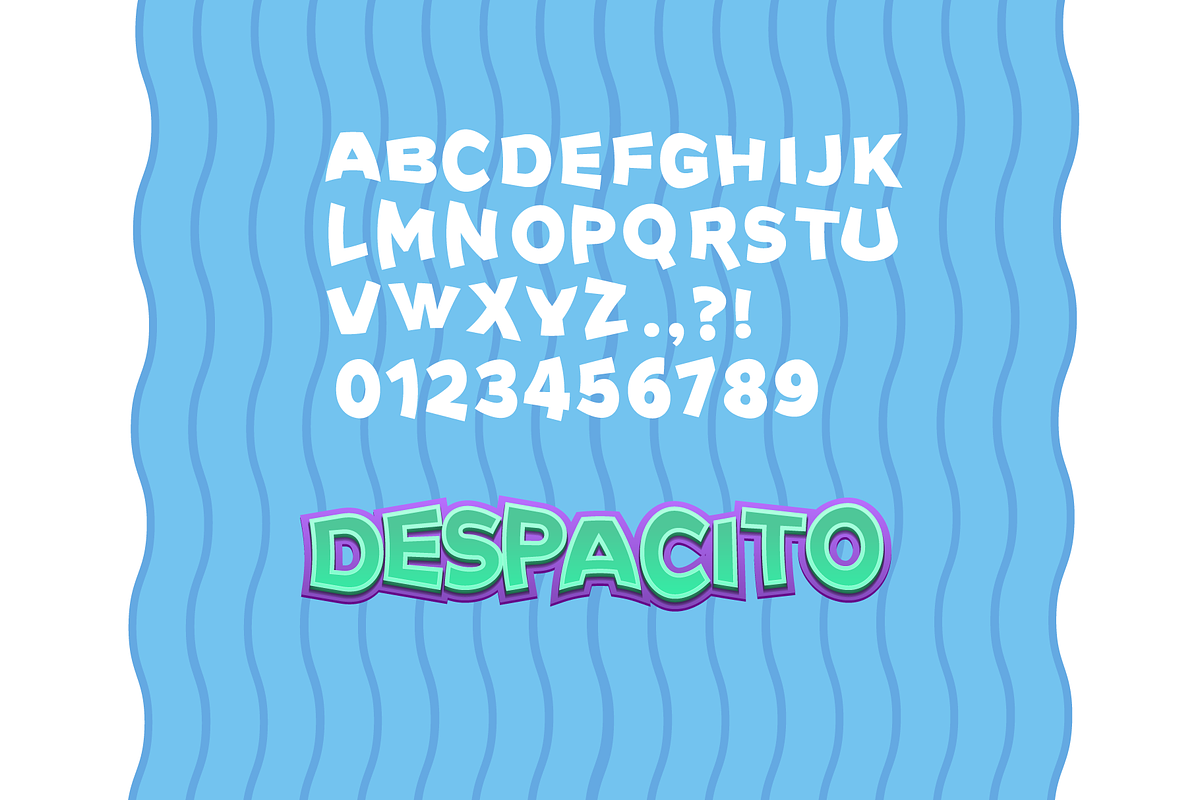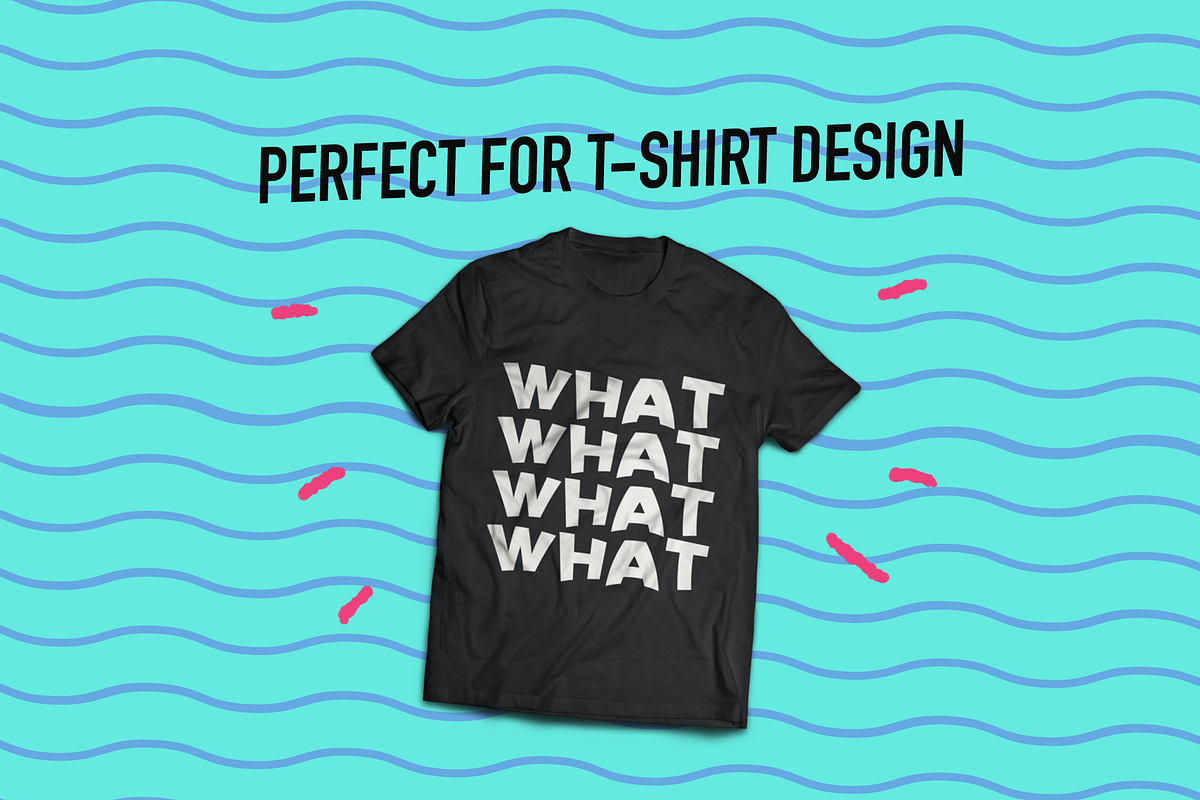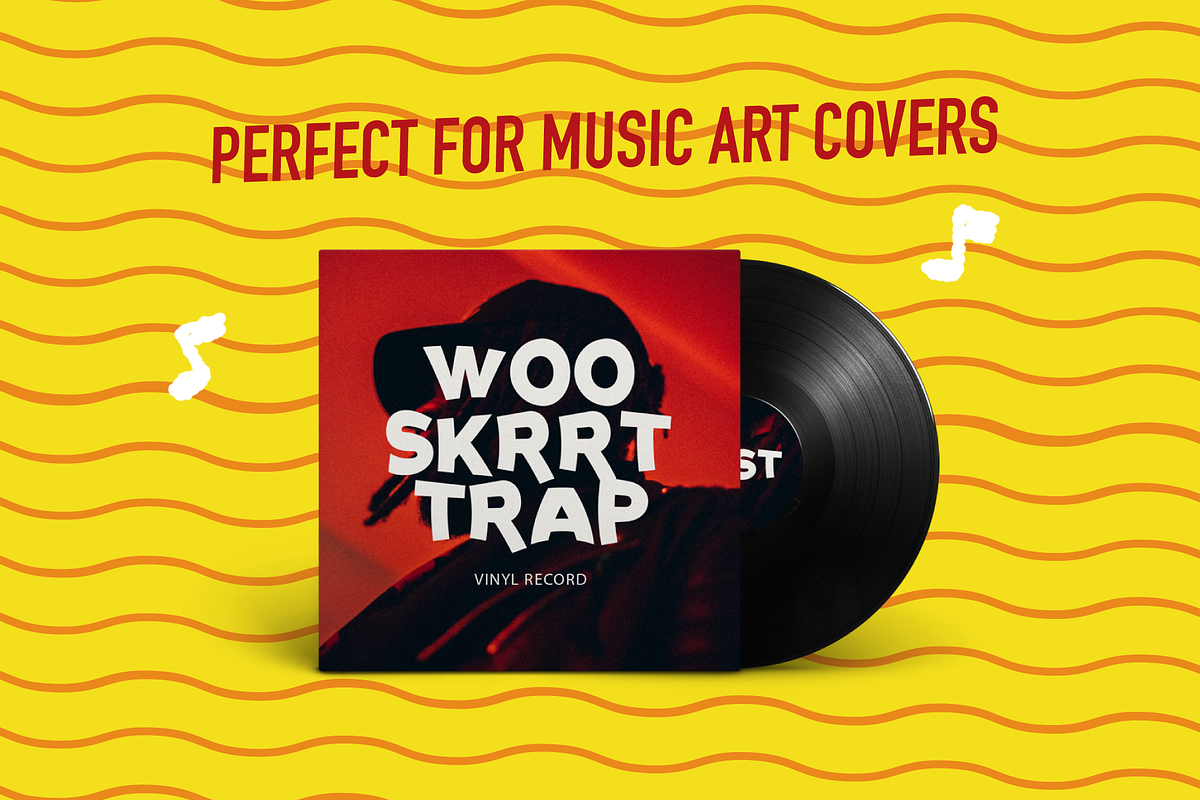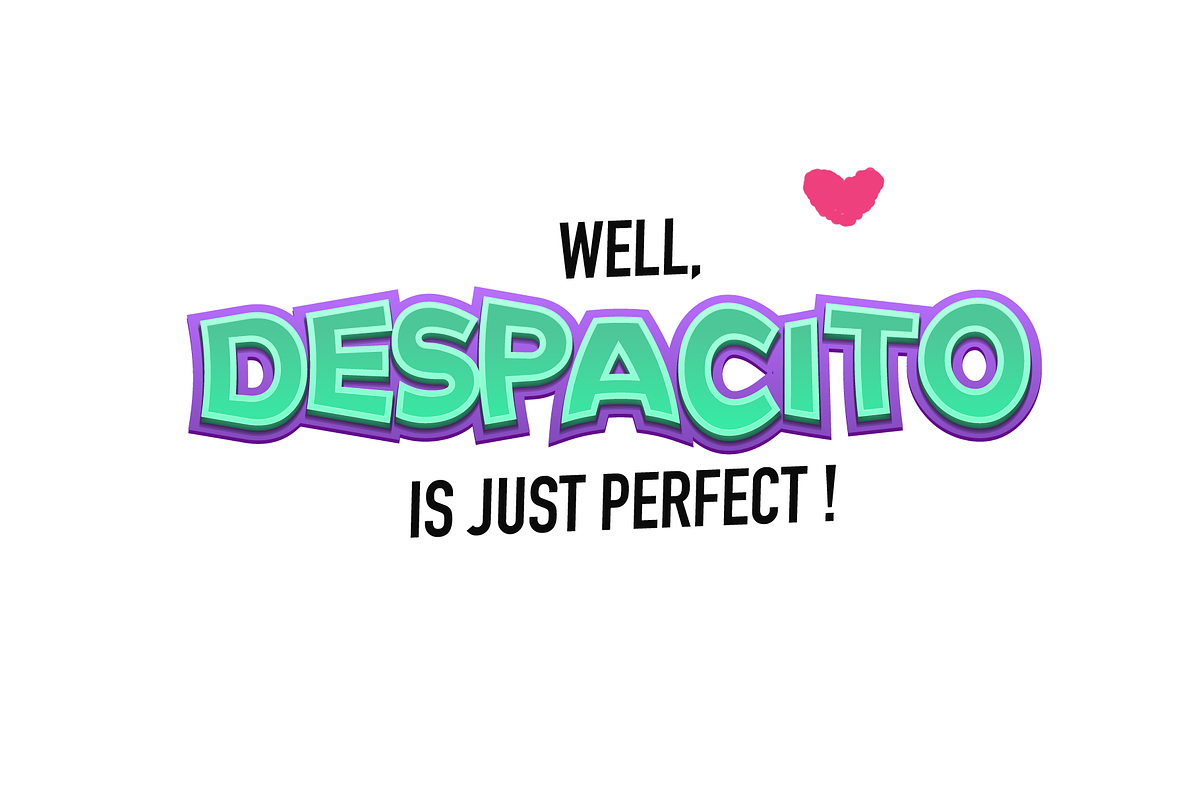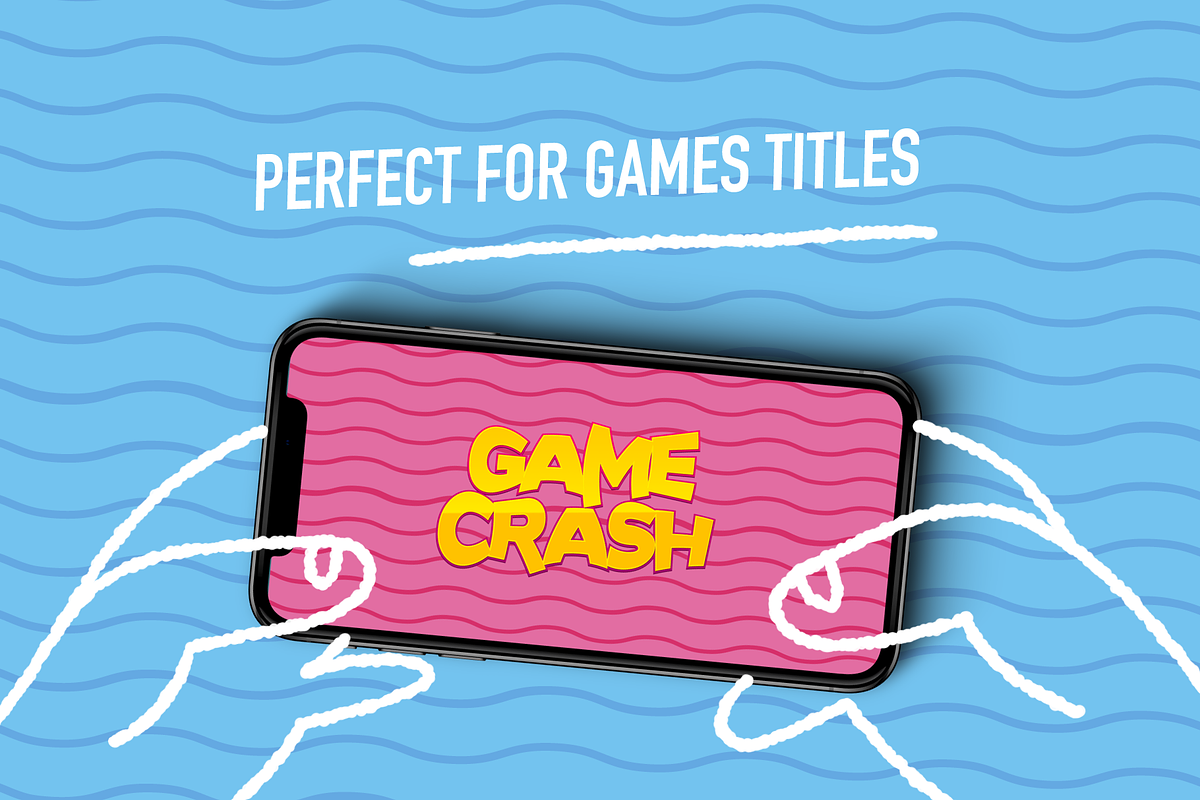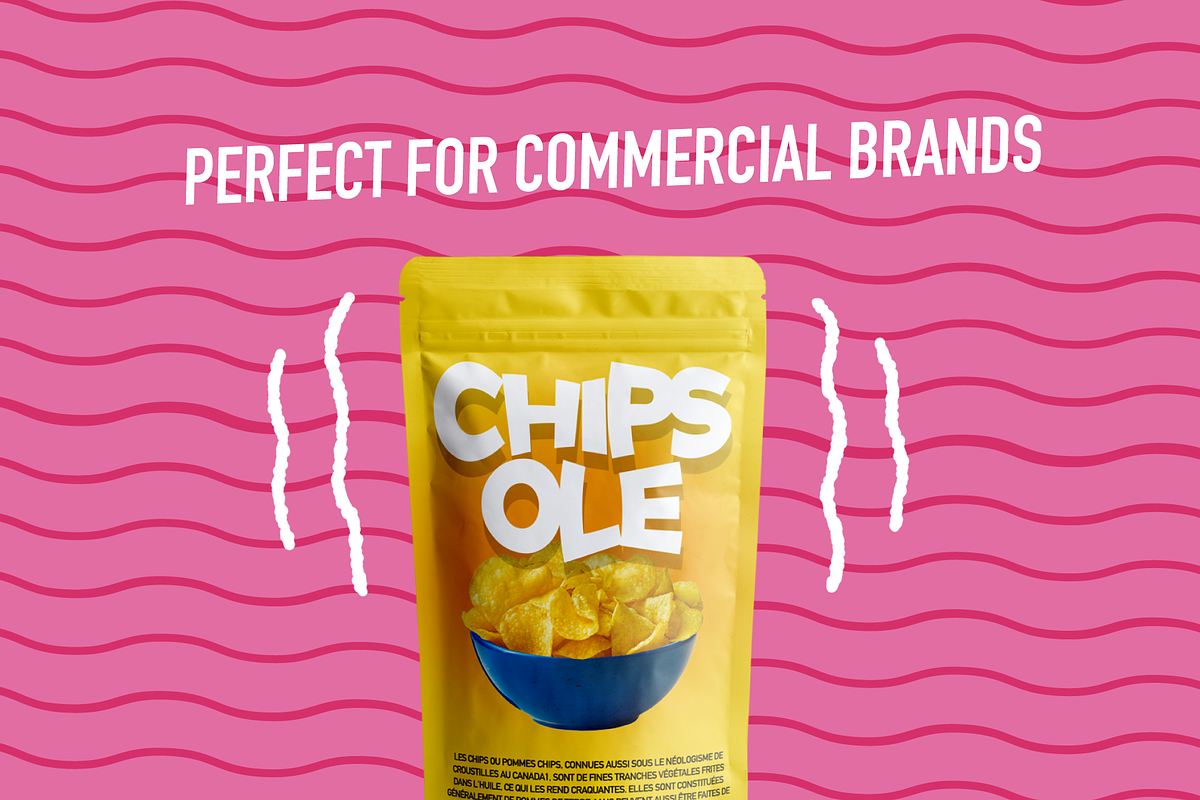
DESPACITO - Display Bold Font
Create bold, gorgeous headlines title and elegant designs with an extra bold font. Despacito's bold lines and funky terminals gives an extra bold look display, perfect for titles, logo, holiday cards, game UI design , cartoon , quotes on t-shirt , advertisements, and so much more. Despacito is a display bold funky cartoony font that's full of character and one you'll come back to time and again.
cartoon titles will be perfect with this bold style font, Create something awesome today with the bold font Despacito. Happy Creating!